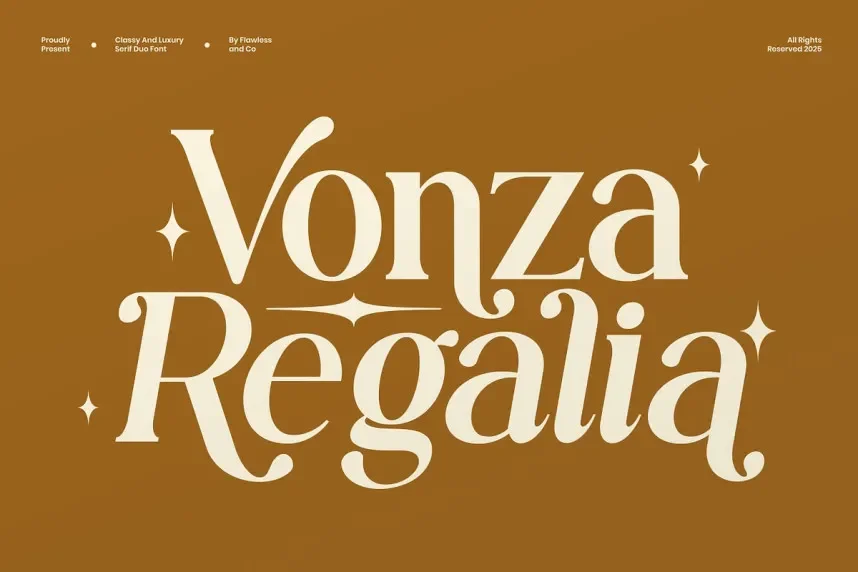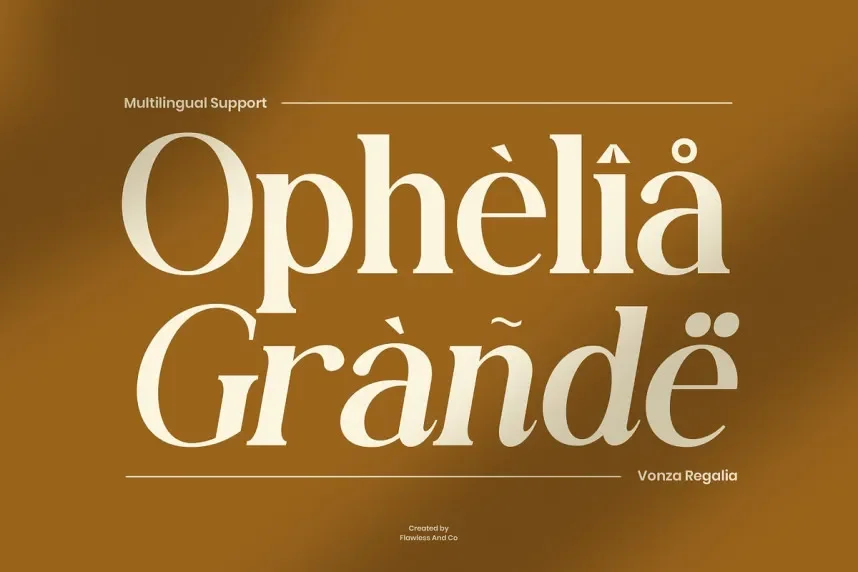
Vonza Regalia Font is a modern display typeface with a strong, bold appearance. Its geometric shapes and sharp lines give it a contemporary feel, making it suitable for high-impact designs such as logos, headlines, and branding that needs to capture attention.